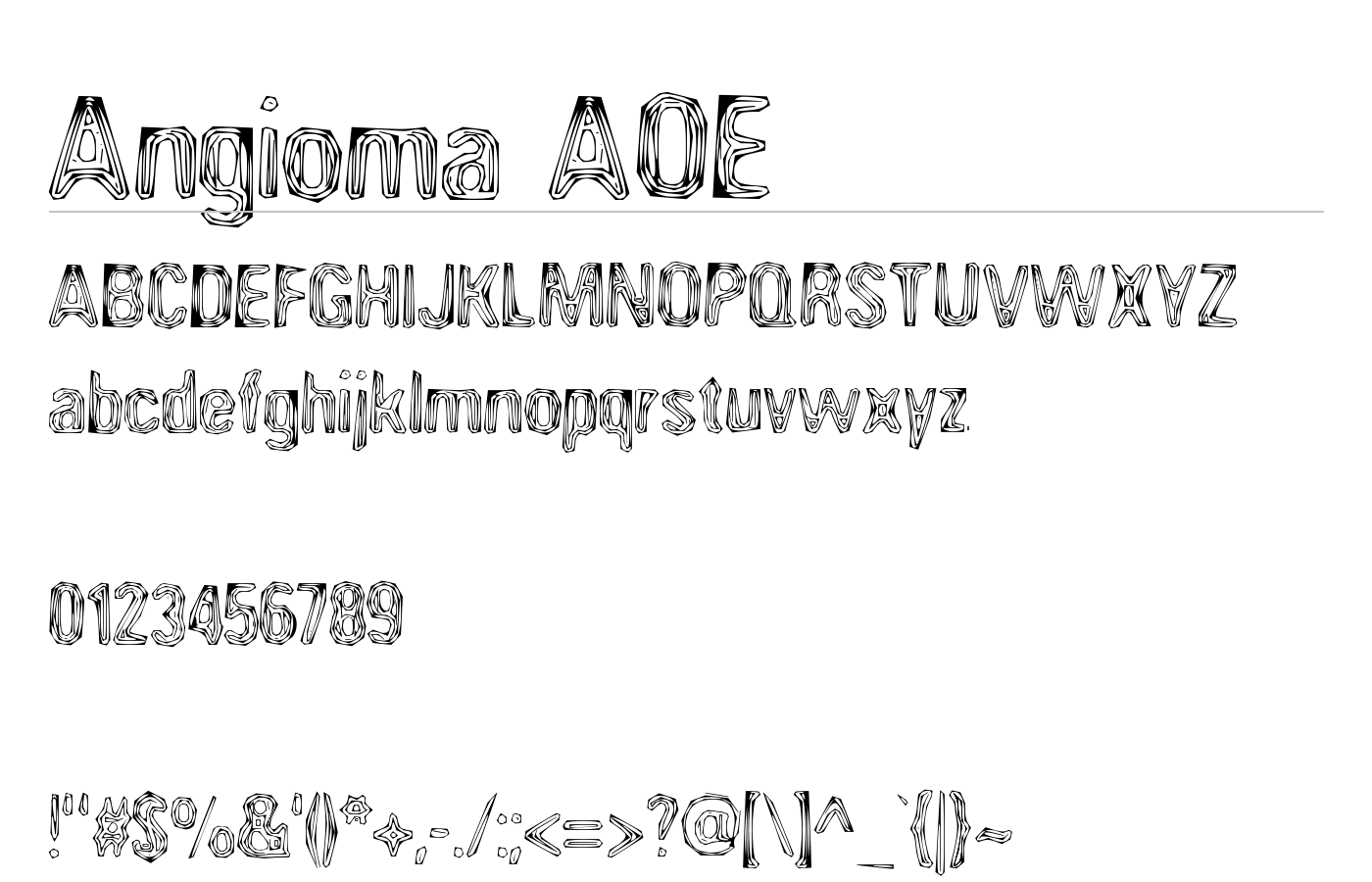
Angioma AOE is a unique sans serif display font characterized by its multi-layered, sketch-like strokes that create a dynamic, textured effect. With a regular weight and normal width, it features an irregular, hand-drawn style that feels playful and artistic, making it perfect for creative projects needing a distinct, eye-catching look. This font works wonderfully in headlines, posters, and branding that seek an unconventional and expressive vibe.
Angioma AOE Font
About Angioma AOE Font